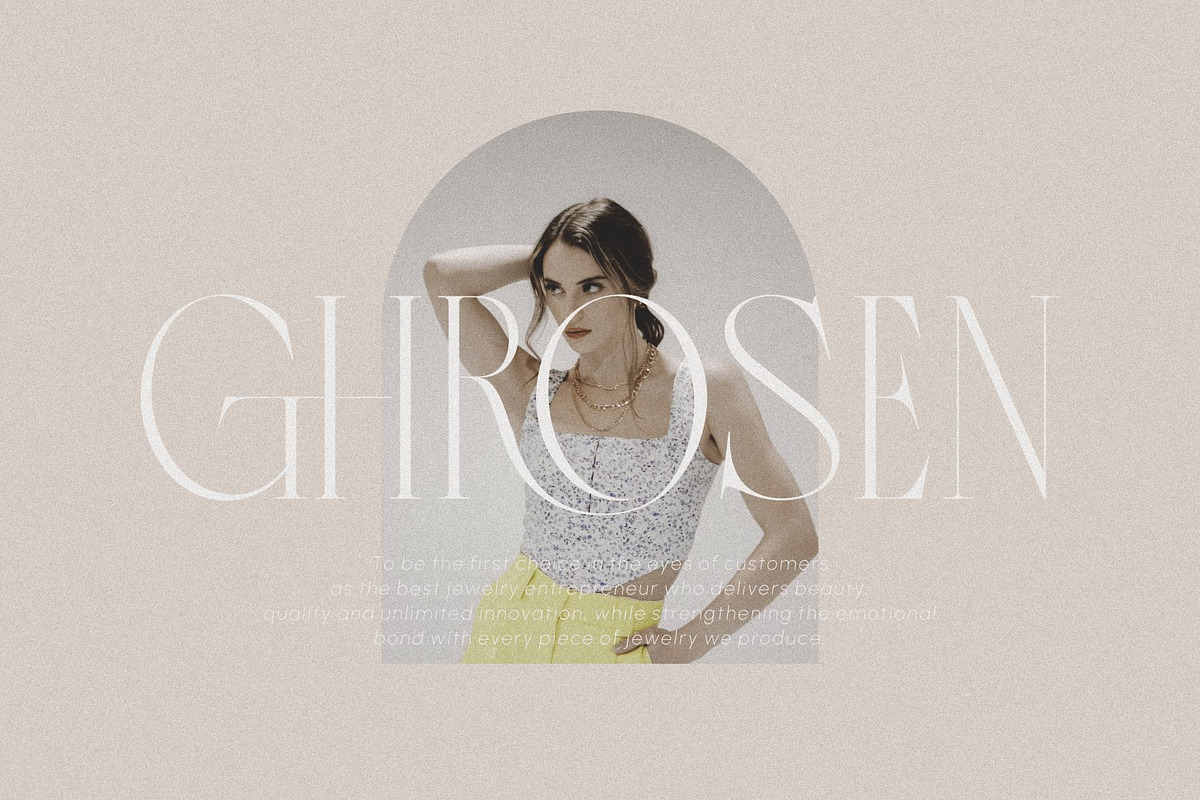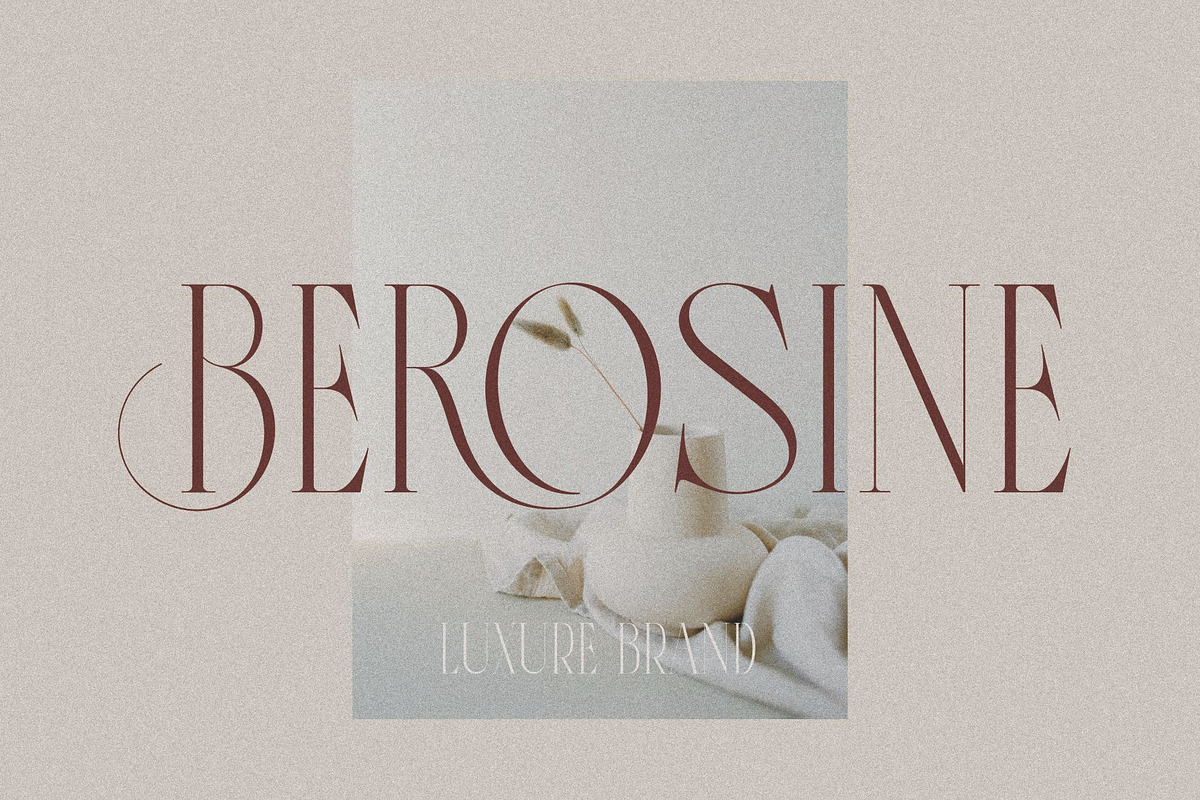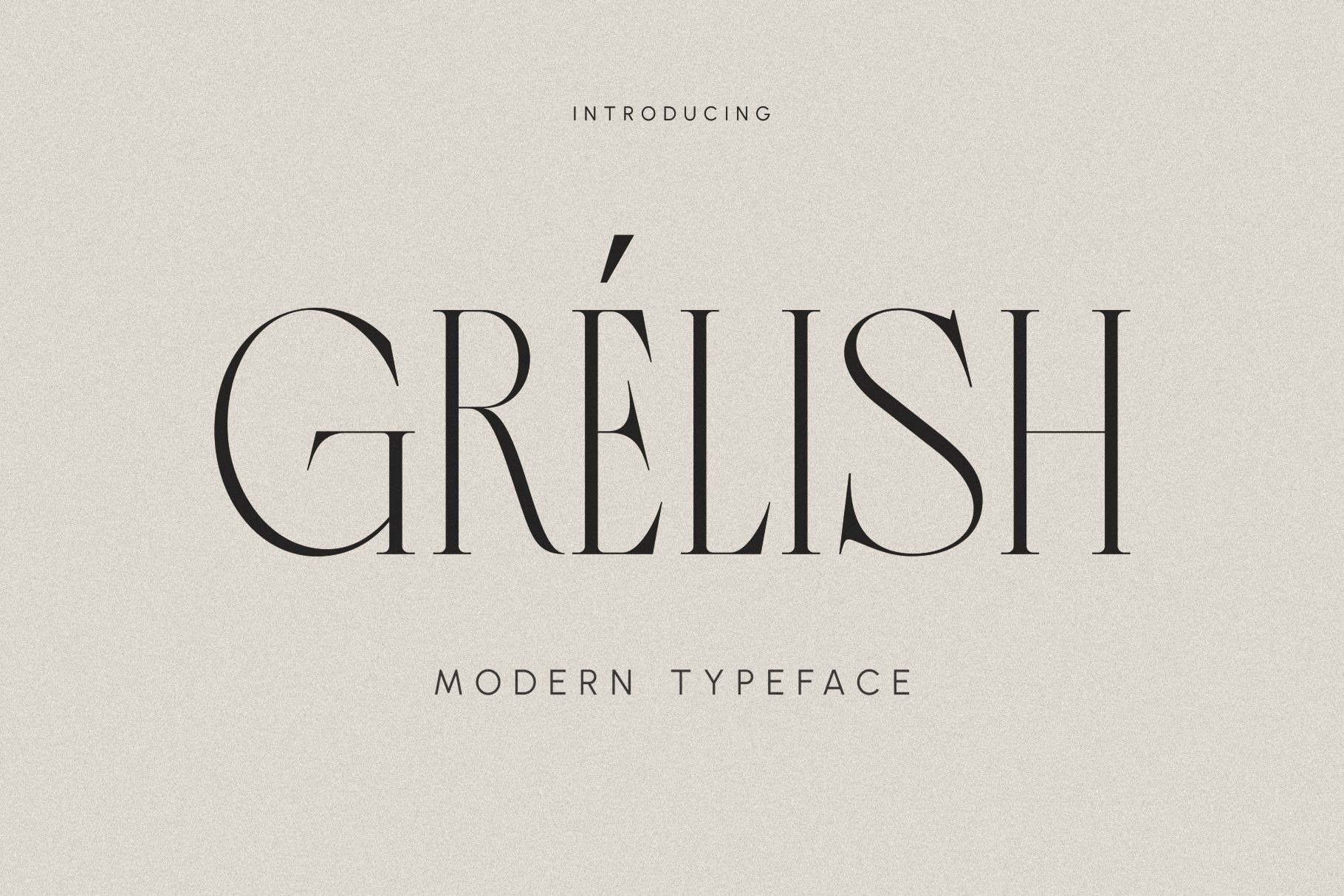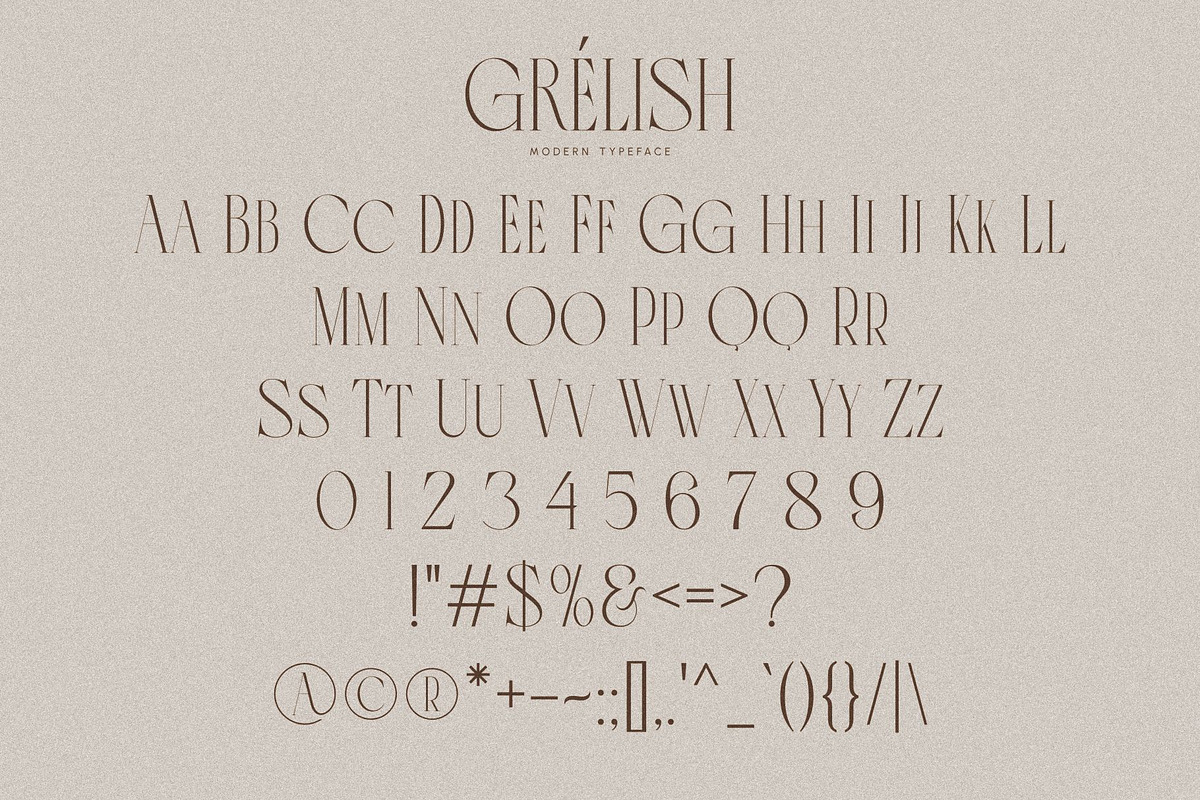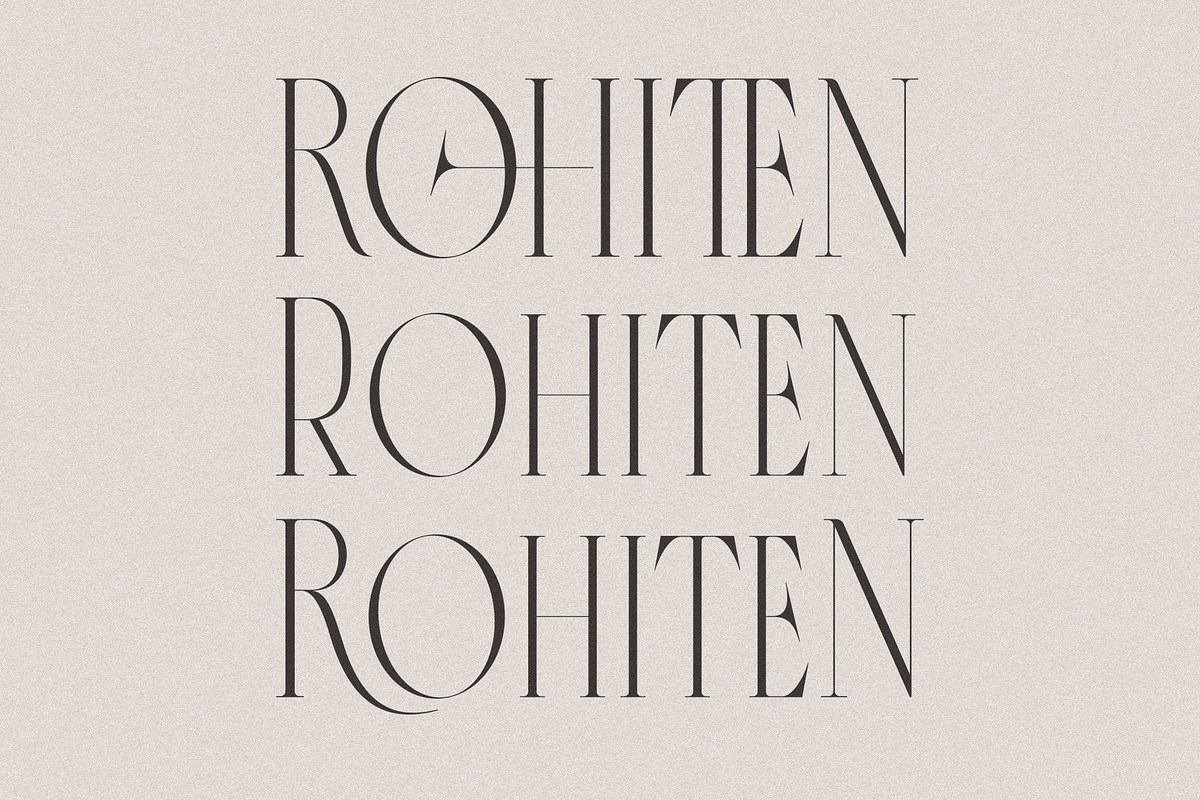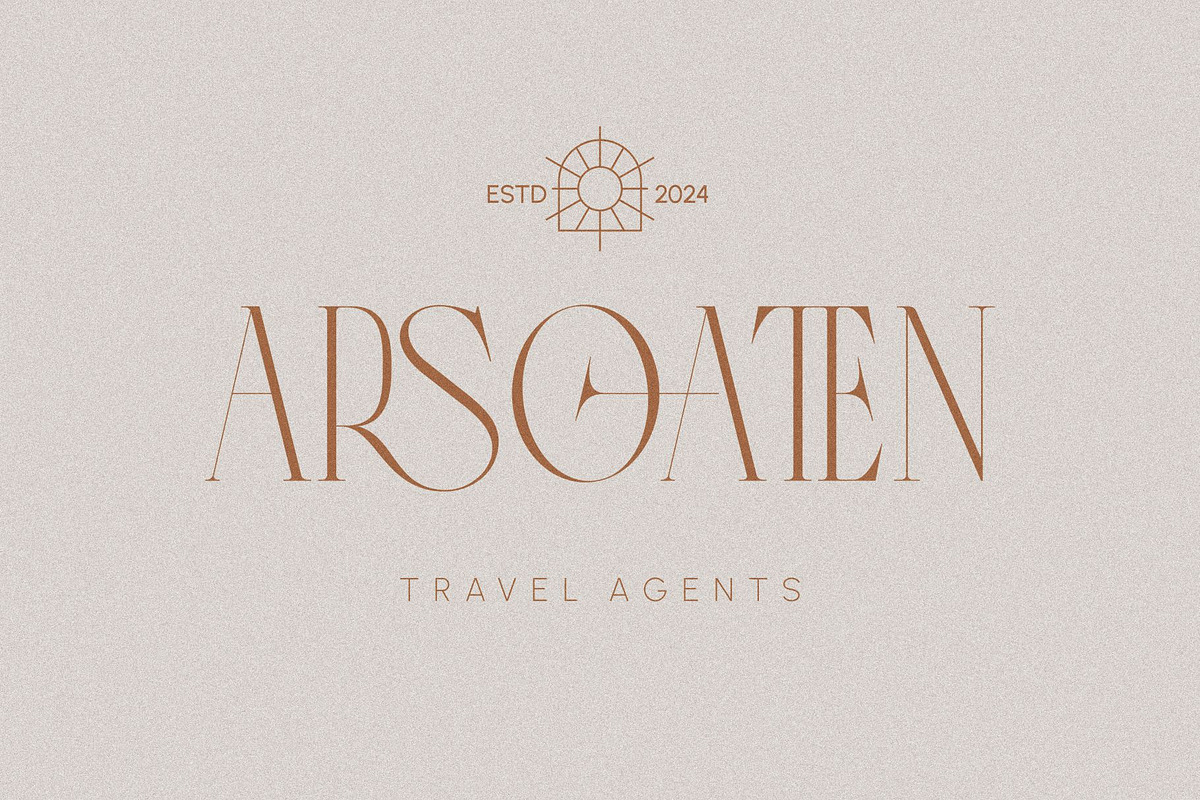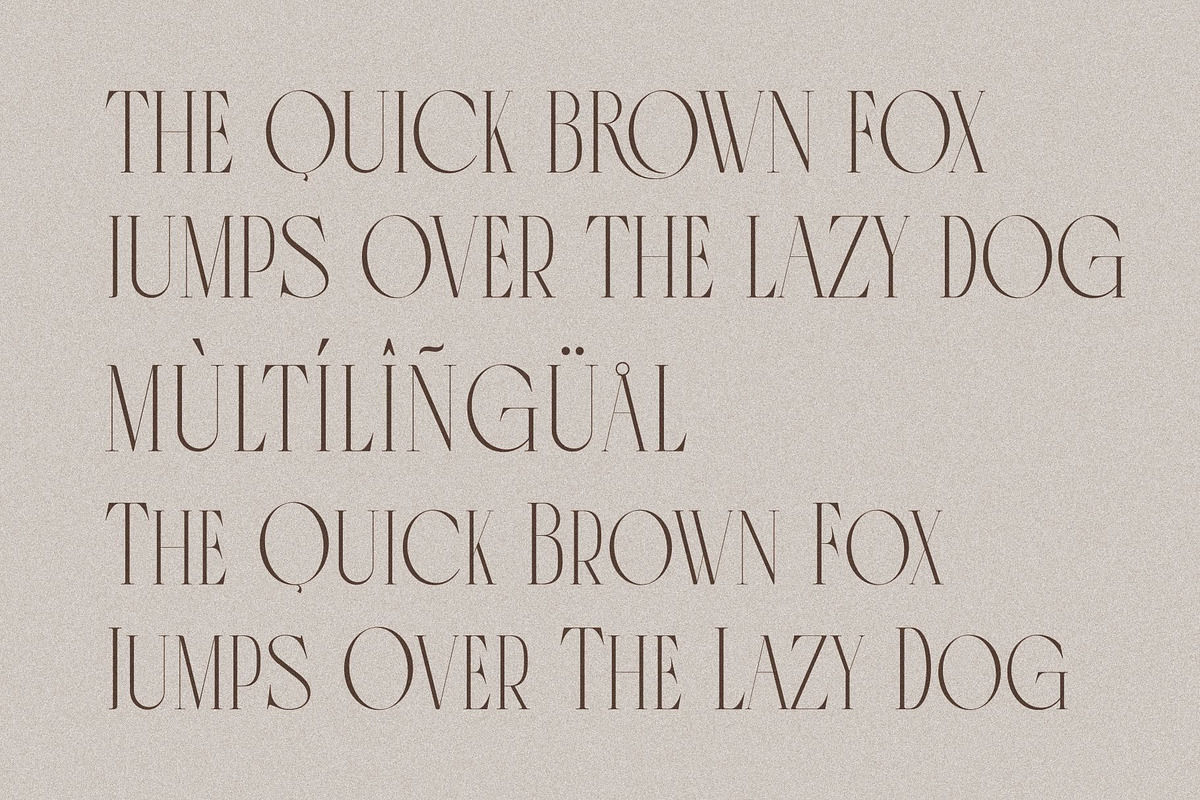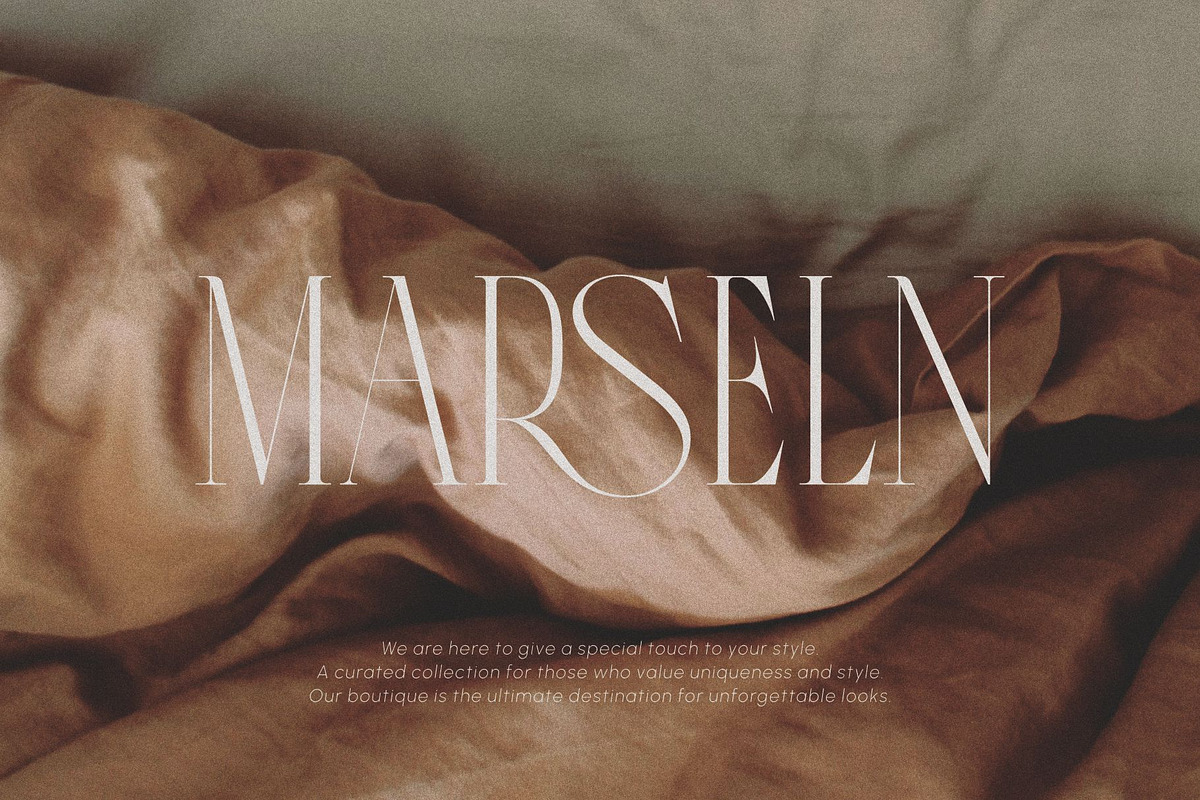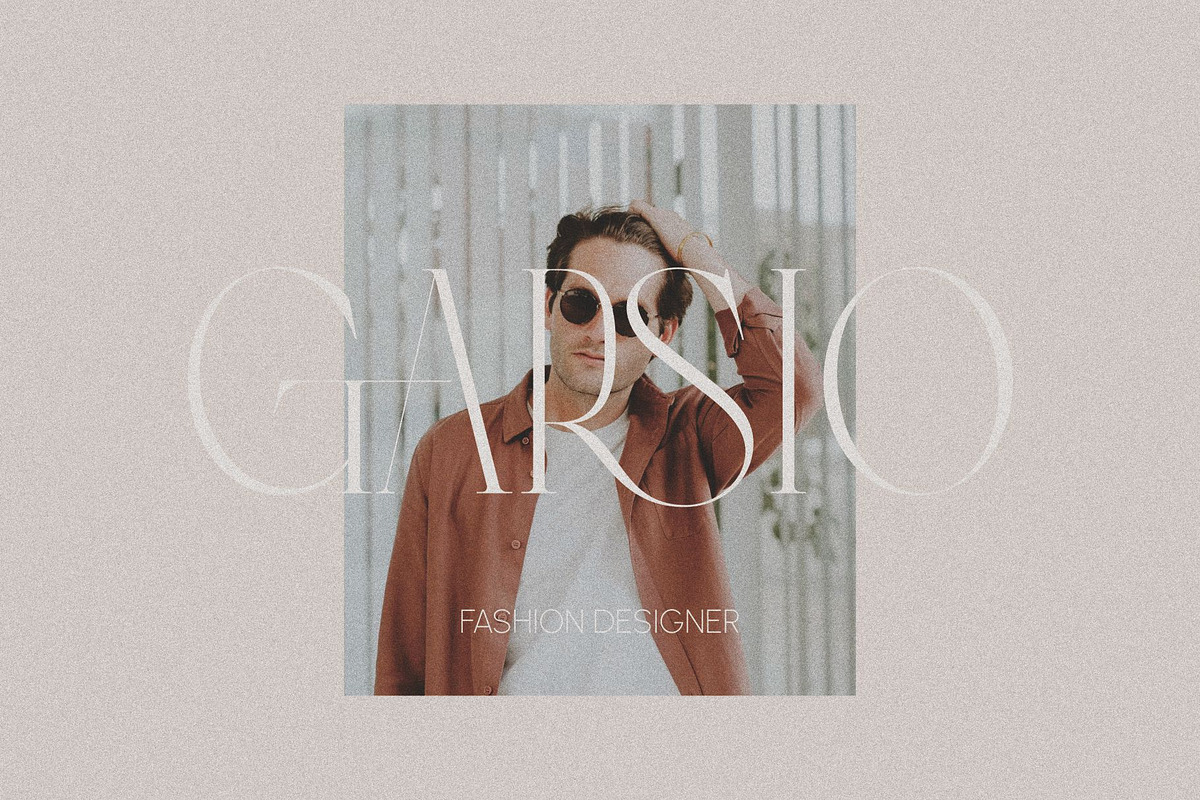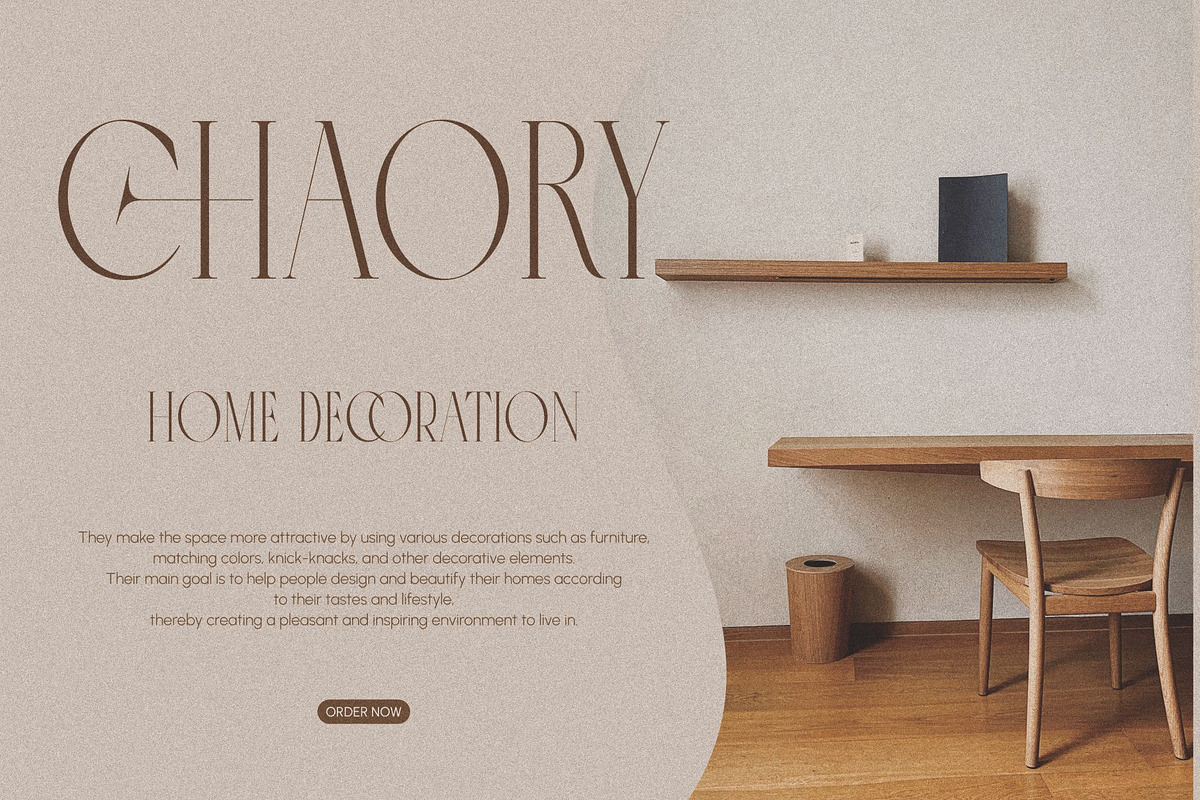
Grelish _ Modern Typeface
Grelish _ Modern Typeface The luxurious serif font brings perfect elegance through every detail. With smooth and well-proportioned serifs, each letter exudes timeless luxury. The fine lines of each serif convey stability and perfection, creating a classic and timeless feel. The beauty of each curve and the proportion of the letters conveys a charming impression of elegance. When used, this luxurious serif font is able to bring an exclusive touch to text, exuding an aura of luxury and prestige.
~ Unique Fonts Ligatures and Alternate